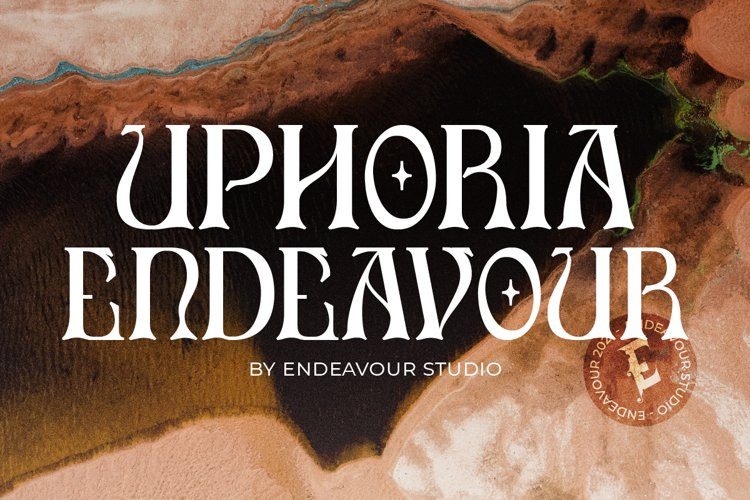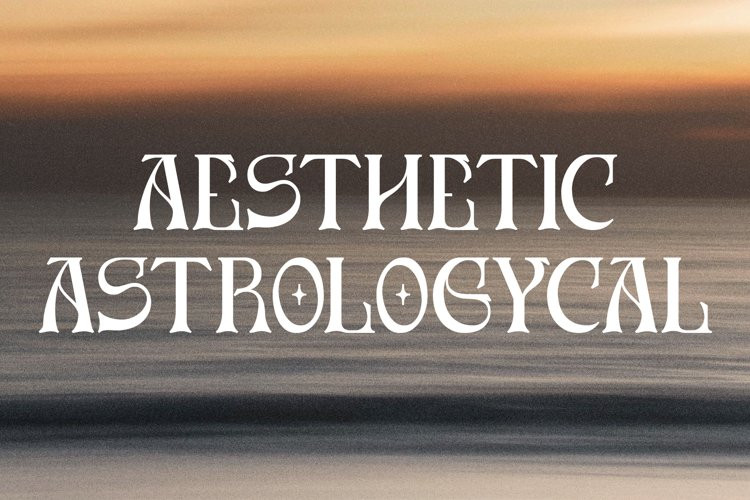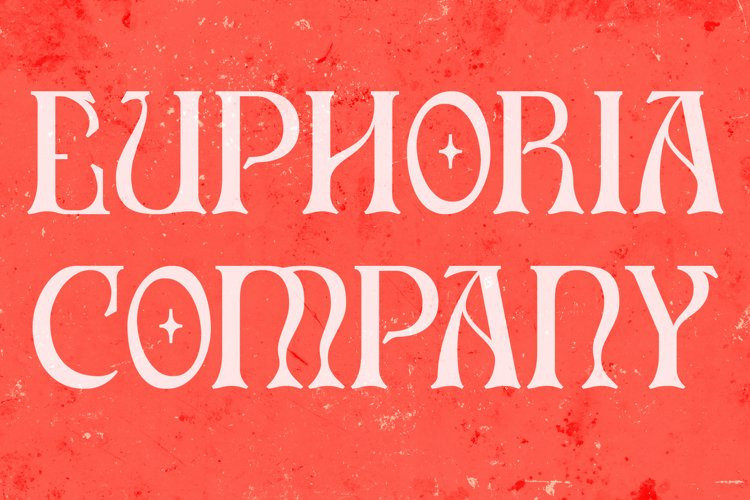
Uphoria Font
Uphoria FontUphoria is a modern serif display with a distinct curve that retains a serif sense along with each glyph. Experimental design, on the other hand, disregards design standards while retaining balance. Carefully created and developed, and appropriate for all design requirements.